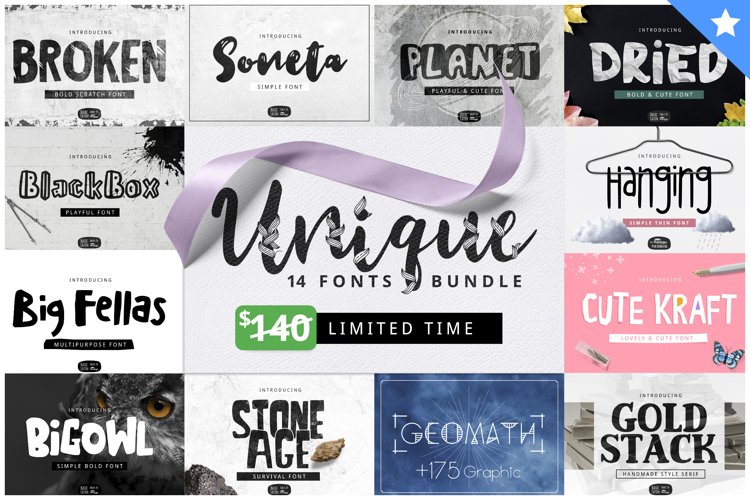
NEW Unique Font Bundles by YandiDesigns
Unique Font Bundles by YandiDesigns
14 Unique fonts
This collection contain 14 of my unique and cute fonts in .TTF .OTF files. Hope you like my simple font design from this collection. Sure with affordable price !
1. BROKEN font
2. Planet font
3. BlackBox font
4. Soneta font
5. Stone Age font
6. BigOwl font
7. Big Fellas font
8. Cute Craft font
9. Dried font
10. GEOMATH font
11. GoldStack font
12. Hanging font
13. Realita script font
14. Sweety Donut font
Dingbat Specification
Contain 62 character (A-Z a-z and 0-9) per dingbat
Unicode
Basic Latin (Standard English character , number and punctuation)
Font Category
script, display and regular